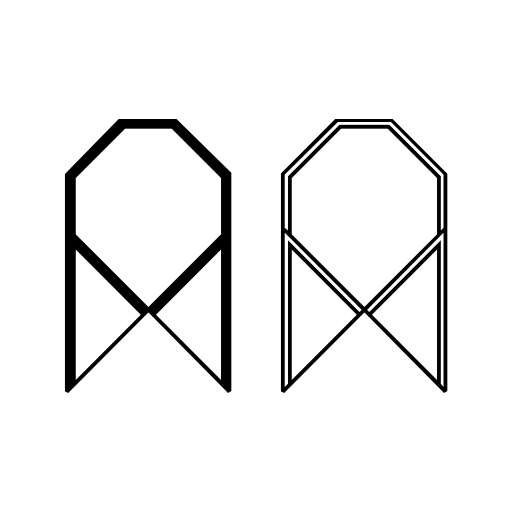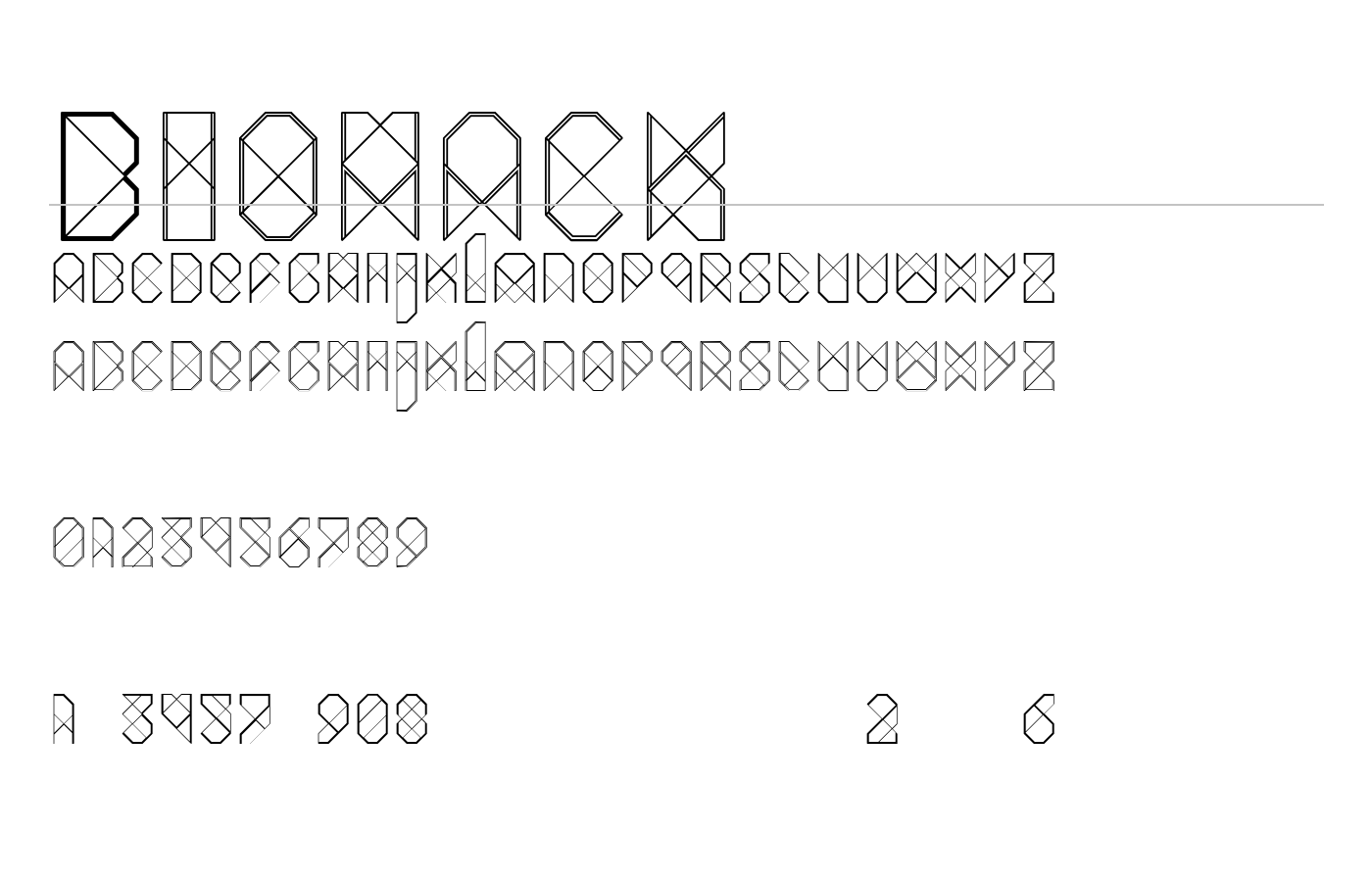
Biohack Font is a futuristic, geometric sans serif with a strong, technical vibe conveyed through its thin, angular lines and sharp corners. Its outline style, with consistent stroke weight and intricate cross-line details, gives it a modern and digital feel, making it ideal for technology, sci-fi, or innovative branding projects. This font works best in display uses such as logos, headlines, and posters where its unique structure can stand out and create a striking visual impact.
Biohack Font